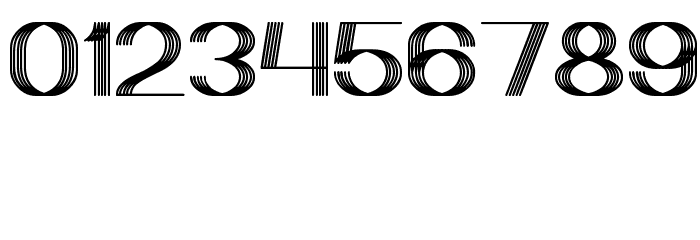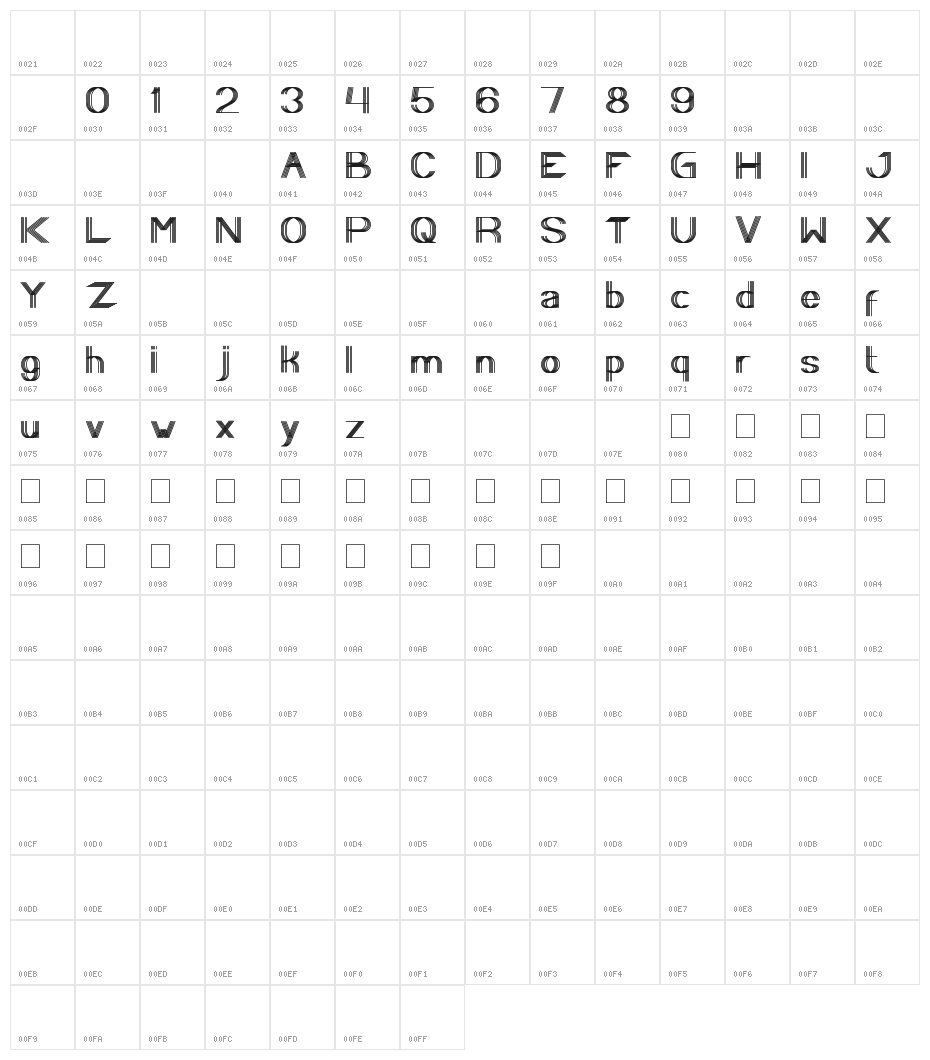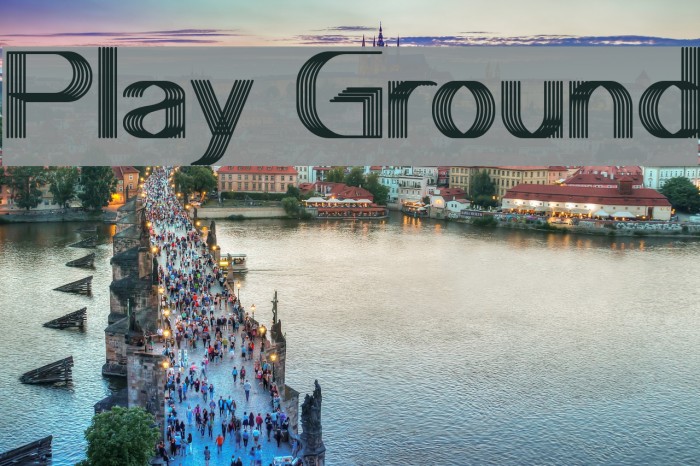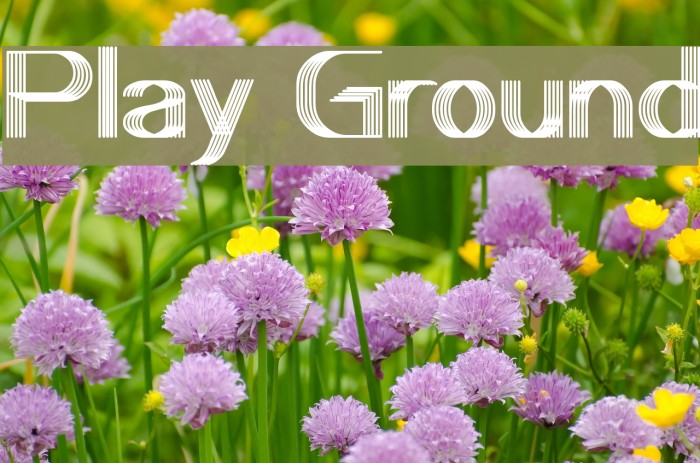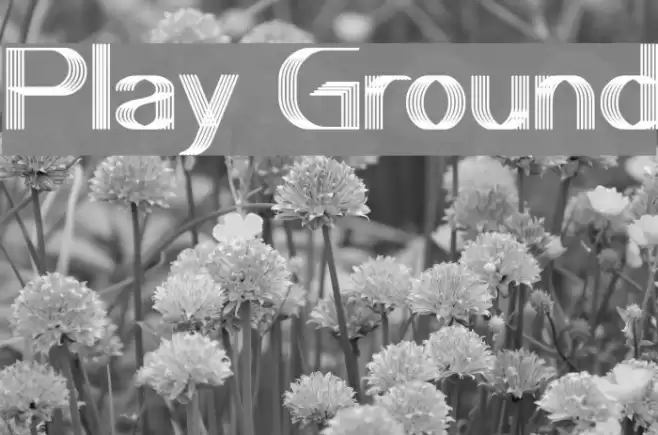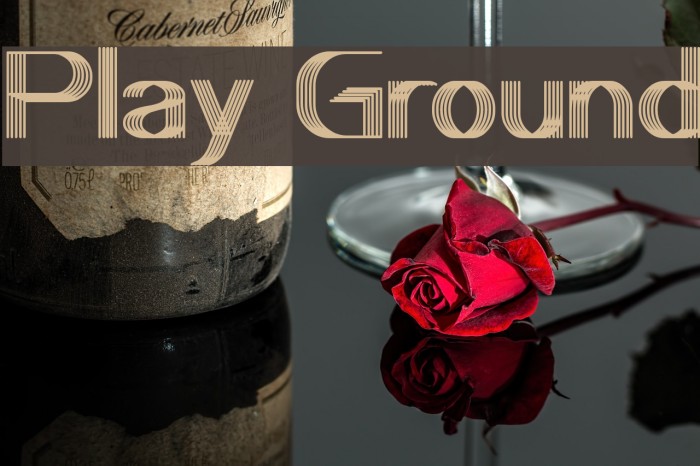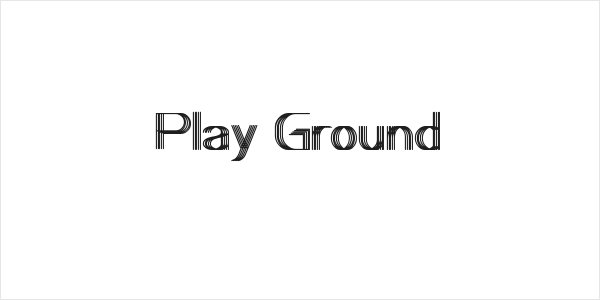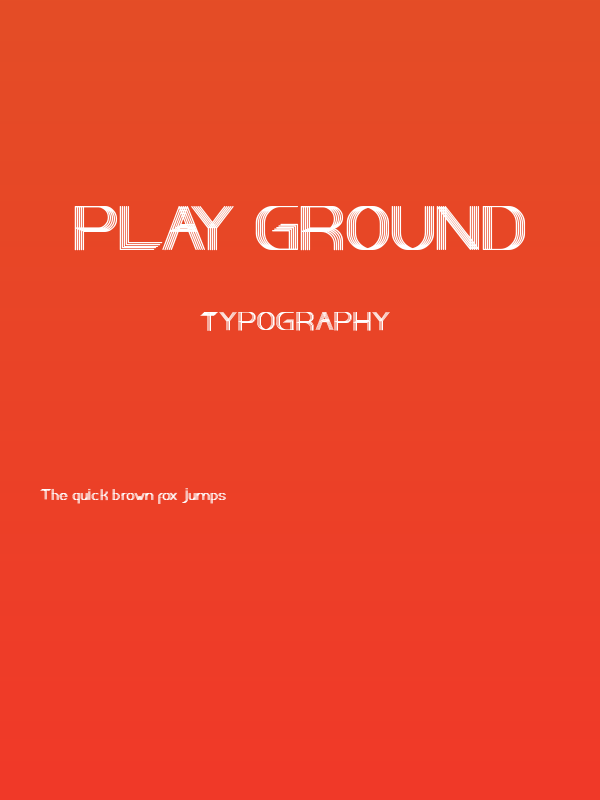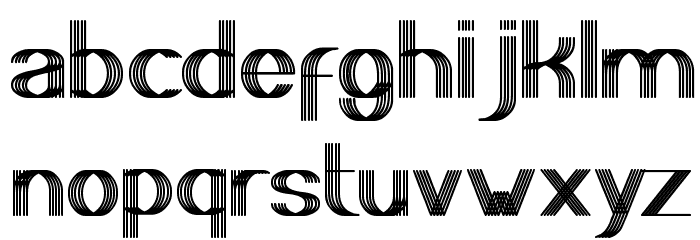
Play Ground Font
Play Ground Description
This font features a unique, modern design characterized by multiple parallel lines forming each character, creating a sense of movement and rhythm. The uppercase and lowercase letters maintain a consistent style, with sharp angles and clean lines that give a futuristic and dynamic appearance. The numerals follow the same pattern, ensuring uniformity across all characters. The font's distinct line pattern adds depth and texture, making it stand out in any design. Its geometric structure is both eye-catching and versatile, suitable for various creative applications.
| Proposed Projects | Ideal for branding, posters, album covers, and any project requiring a bold, futuristic aesthetic. |